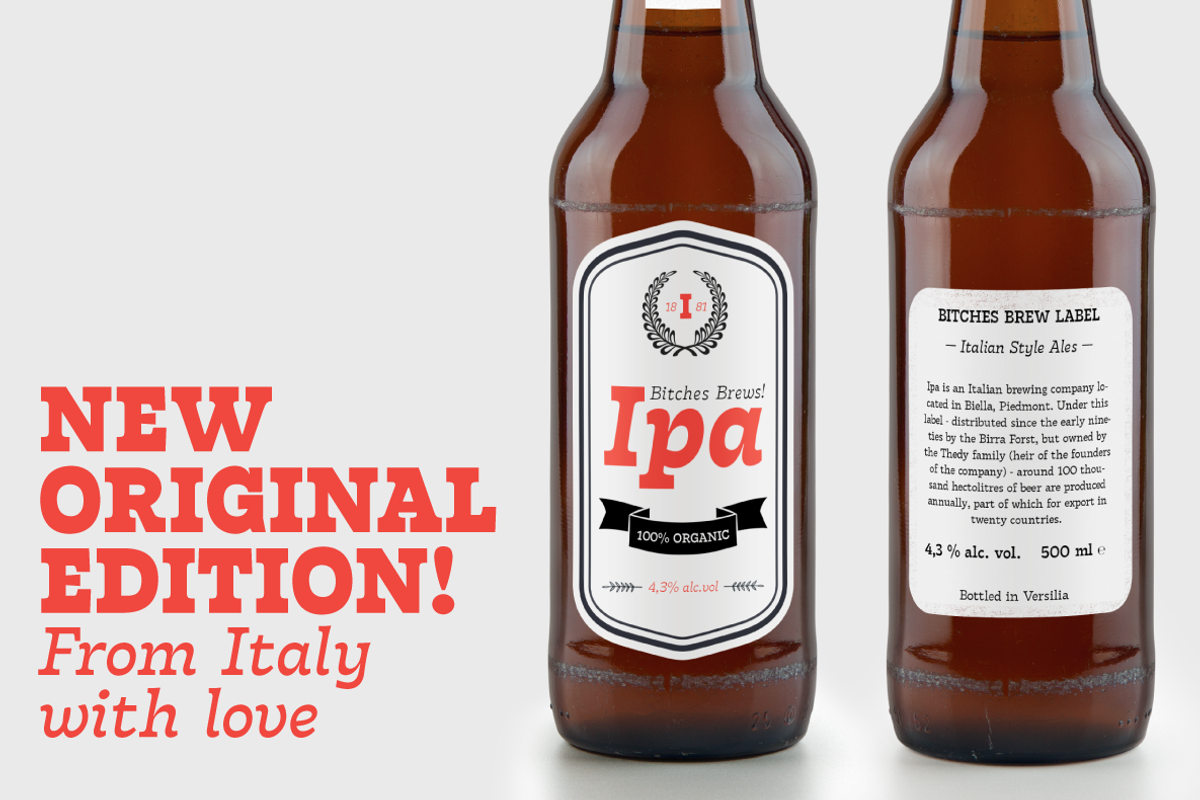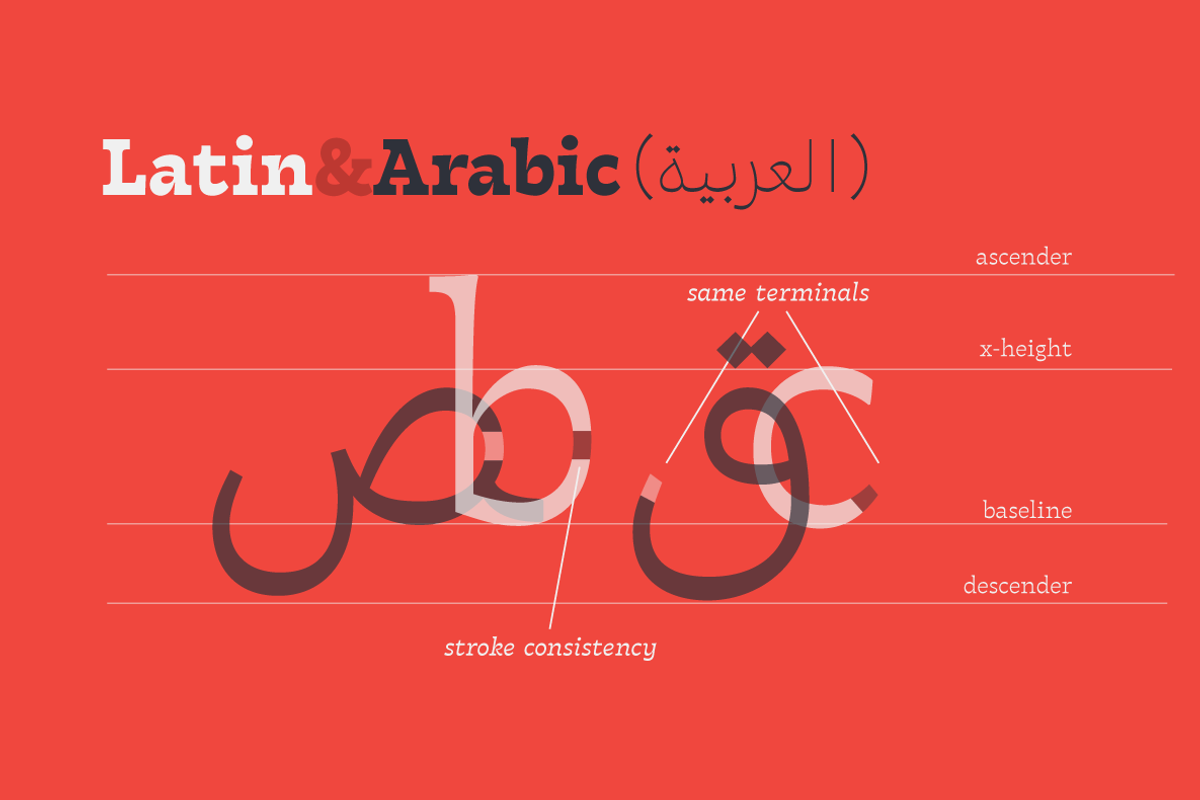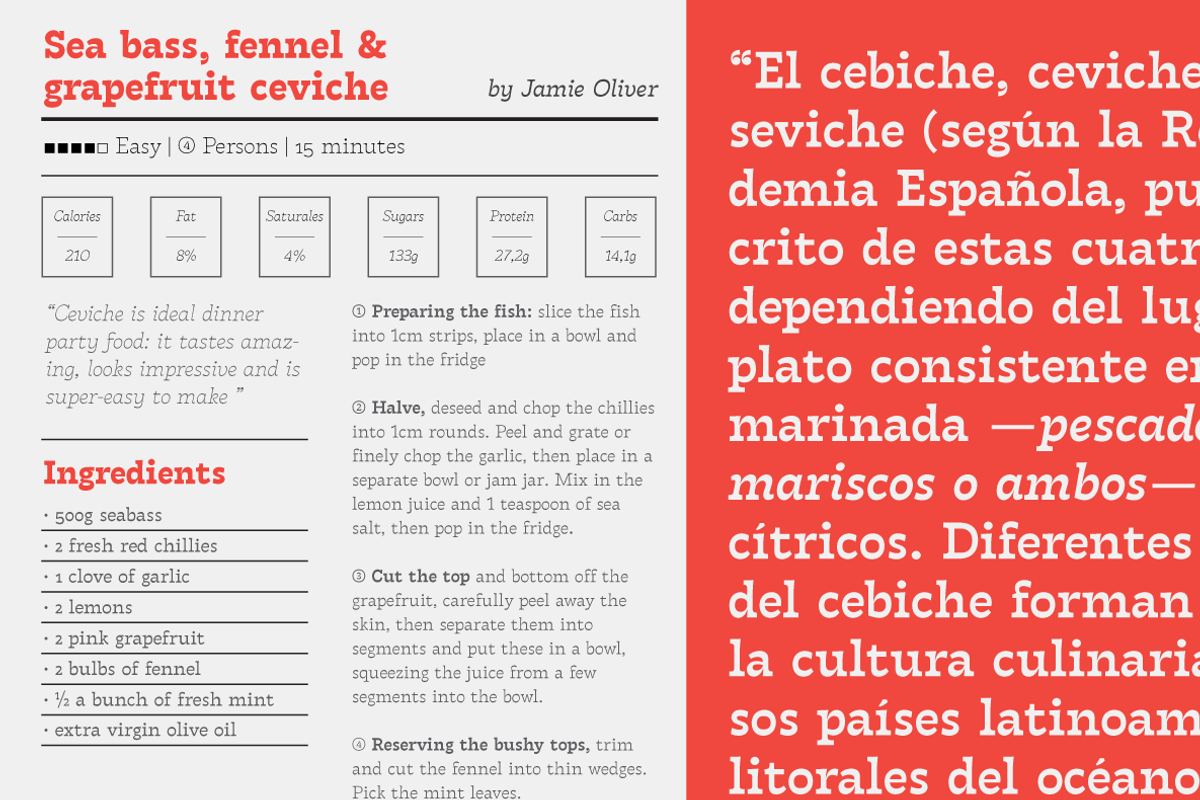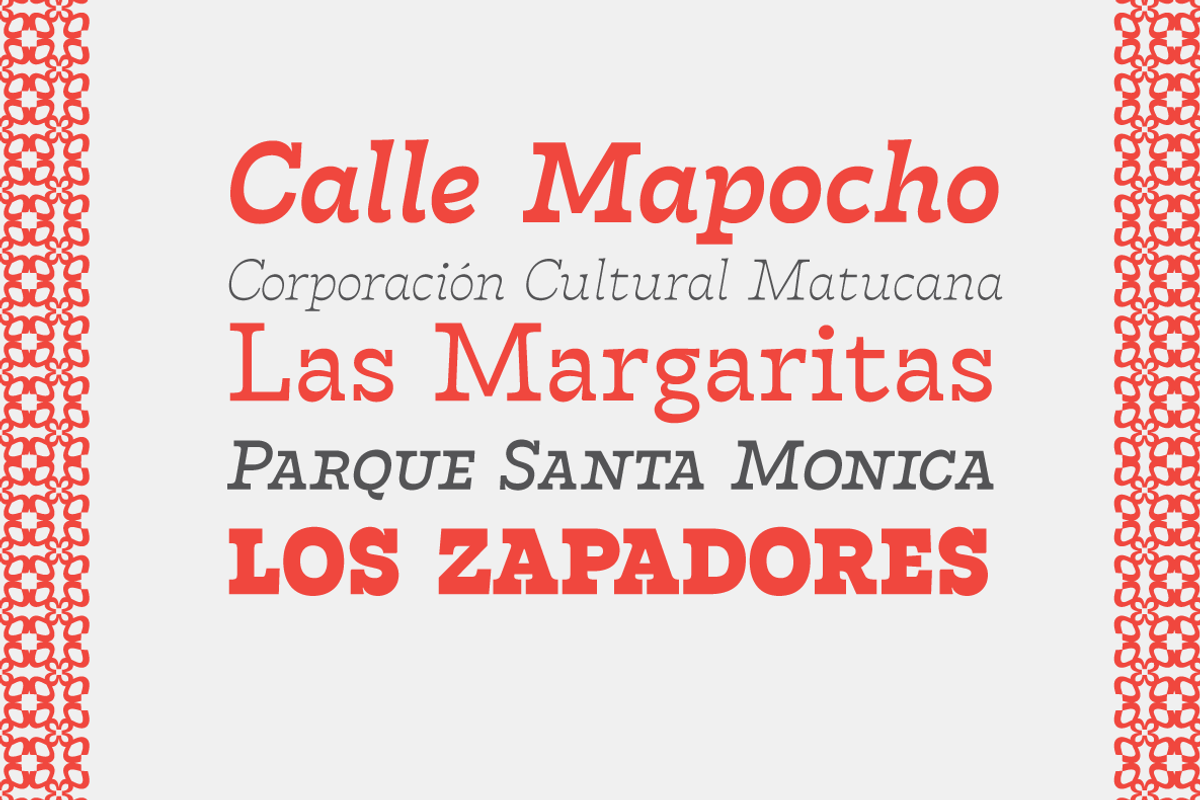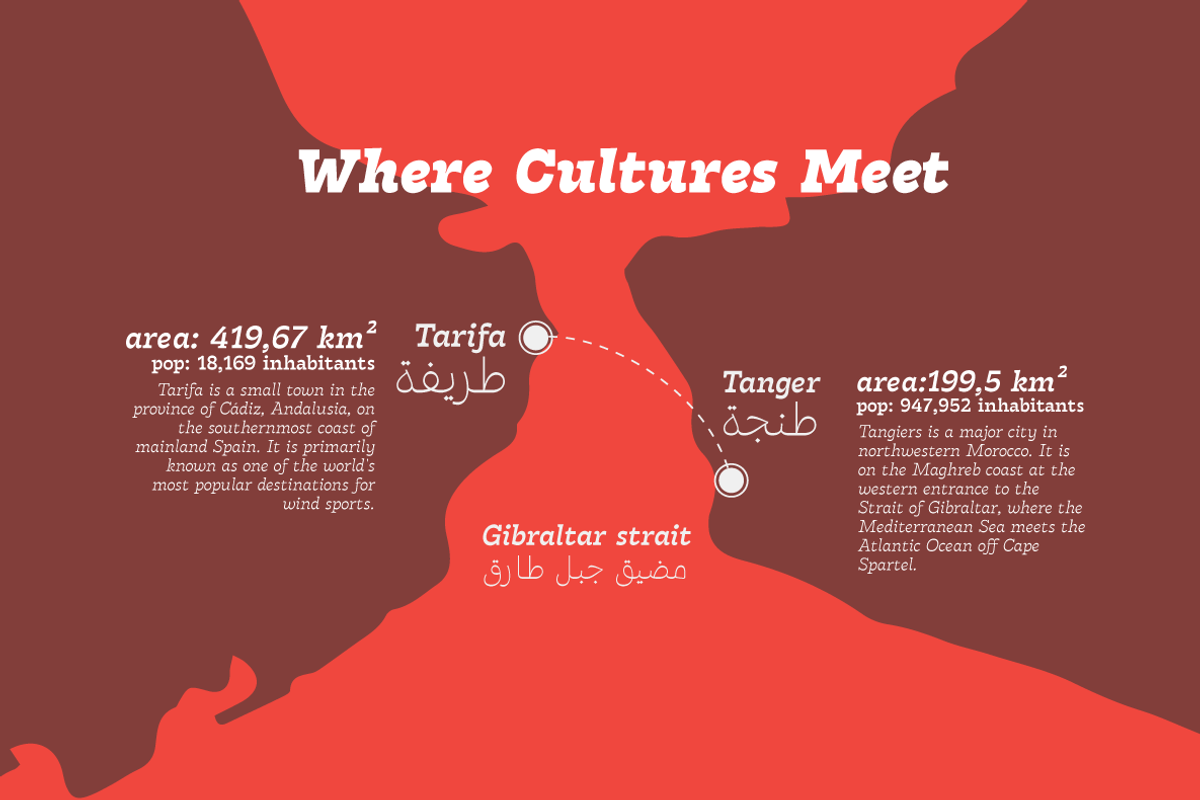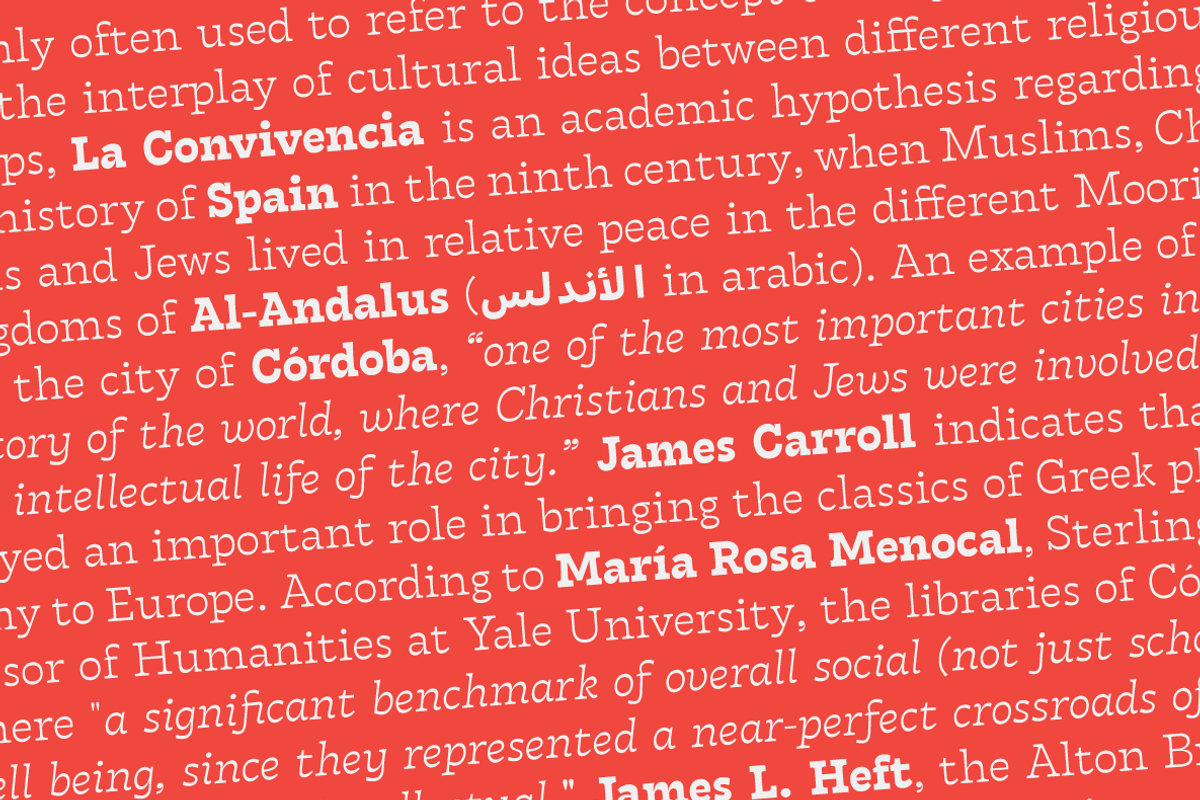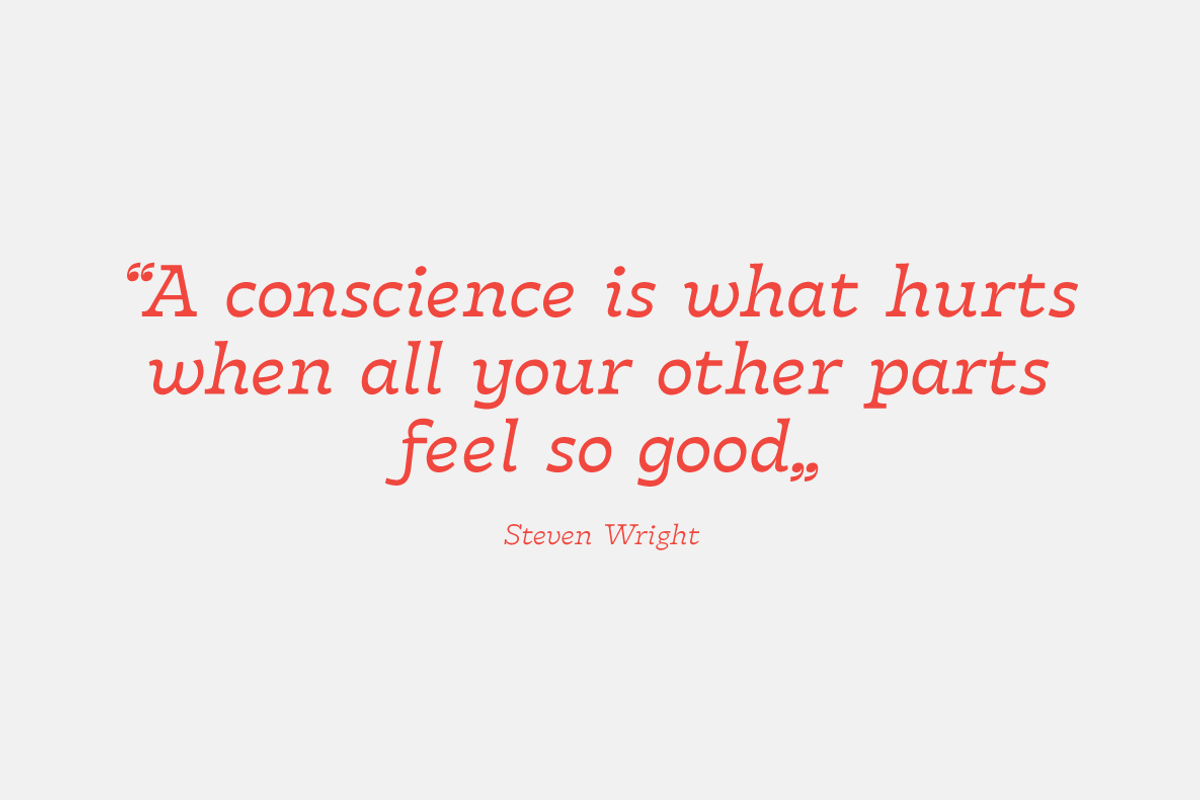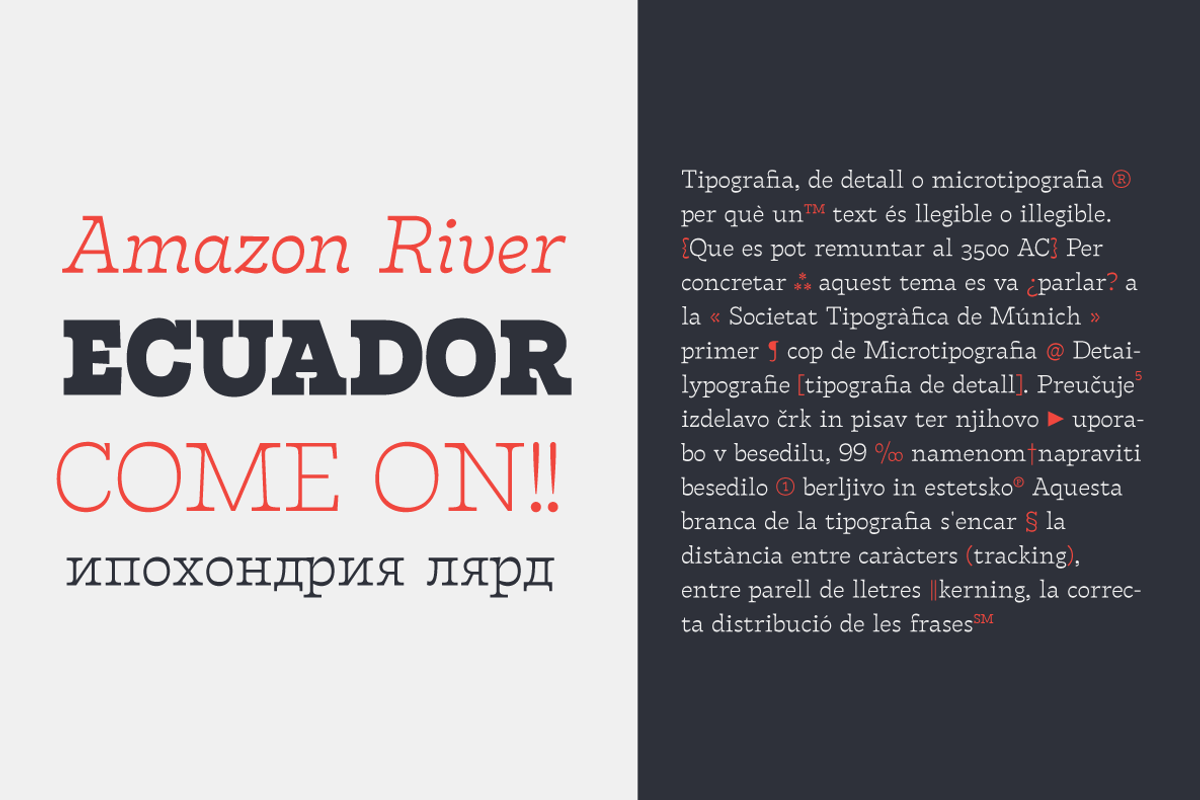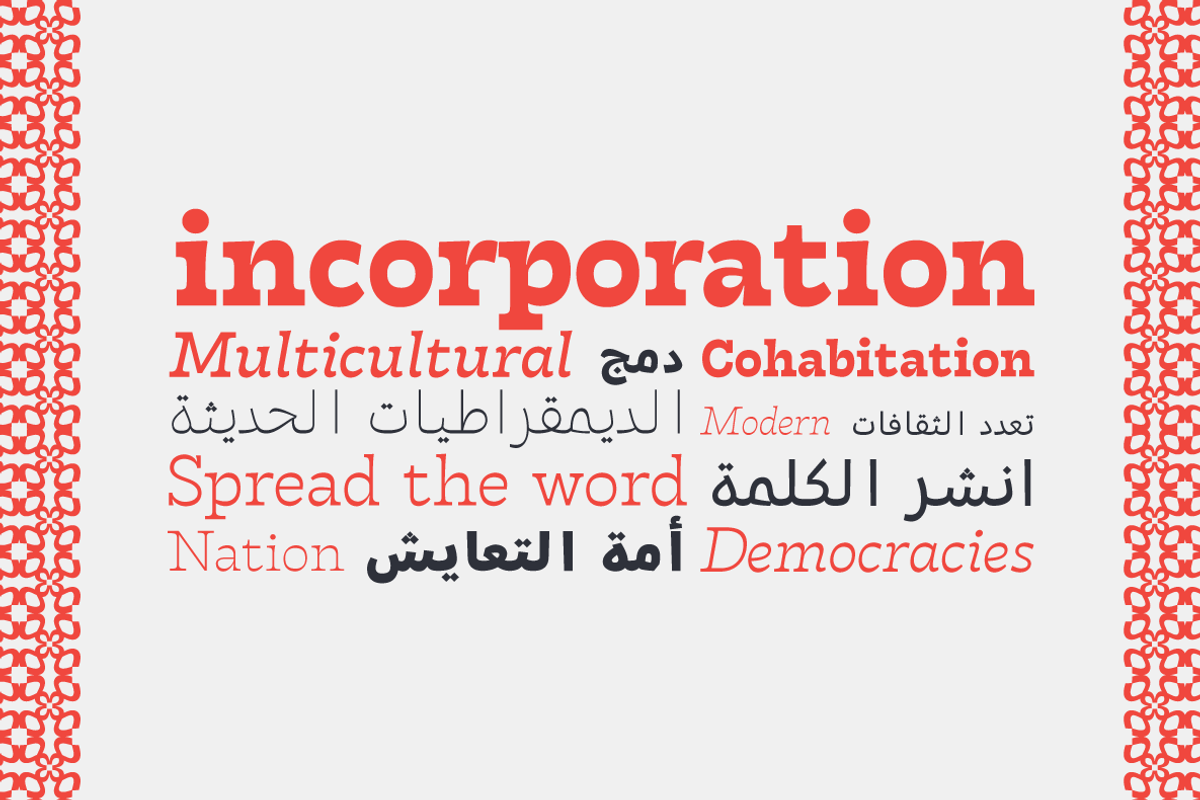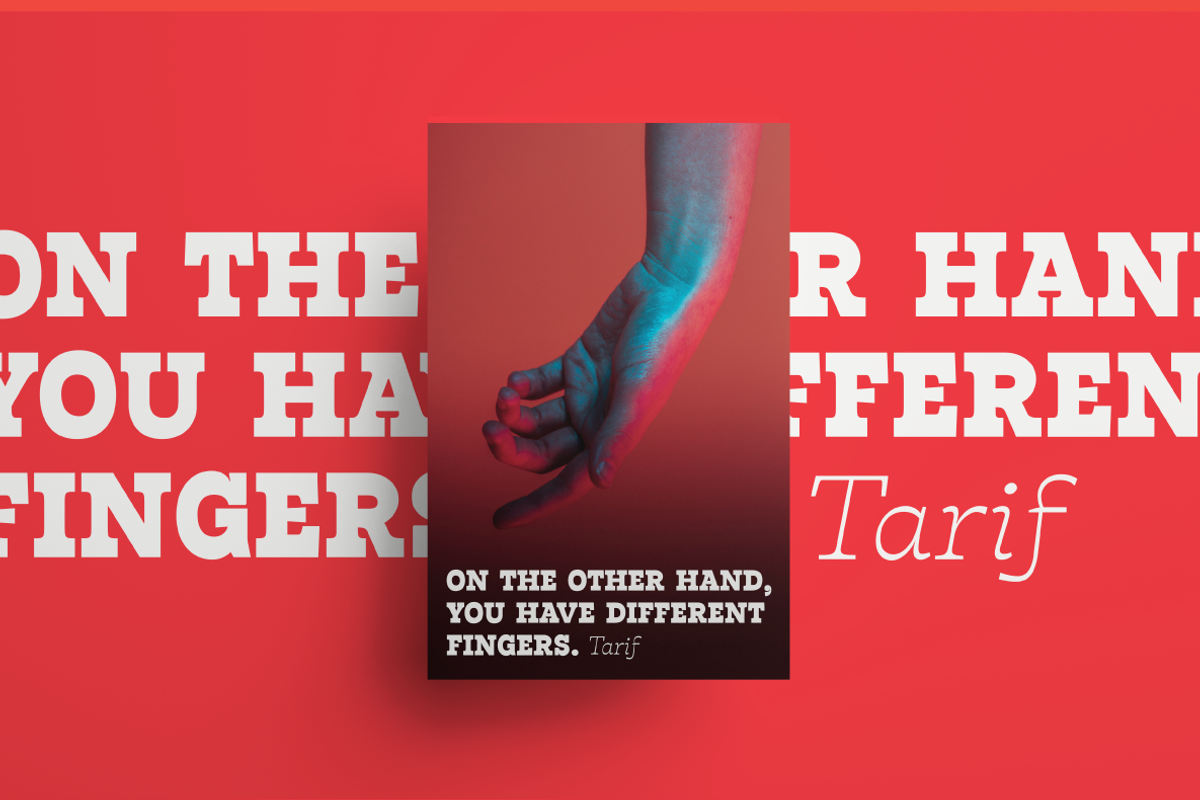
Tarif - 21 fonts
Tarif is a typeface family inspired by the multicultural utopia of Convivencia - the peaceful coexistence of Muslims, Christians and Jews in tenth century Andalusia that played an important role in bringing to Europe the classics of Greek philosophy, togheter with Muslim culture and aesthetics.
Designed for Zetafonts by Andrea Tartarelli, is a slab serif typeface with a humanist skeleton and inverted contrast, subtly mixing latin zest, calligraphic details, extreme inktraps, and postmodern unorthodox reinvention of traditional grotesque letter shapes. The exuberant design, perfect for titling, logo and display use, is complemented by a wide range of seven weights allowing for solid editorial use and great readability in body text. Matching italics have been designed with the help of Maria Chiara Fantini and Cosimo Lorenzo Pancini, while Rania Azmi has collaborated on the design of the arabic version of Tarif, where the humanist shapes and inverted contrast of the latin letters find a natural connection with modern arabic letterforms.
As buoyant as reliable, Tarif includes also a wide array of Open Type Features (alternates, ligatures, positional numerals, case sensitive punctuation) to make design smooth and multi-script projects as exciting as a surf ride in the sunny Tarifa.